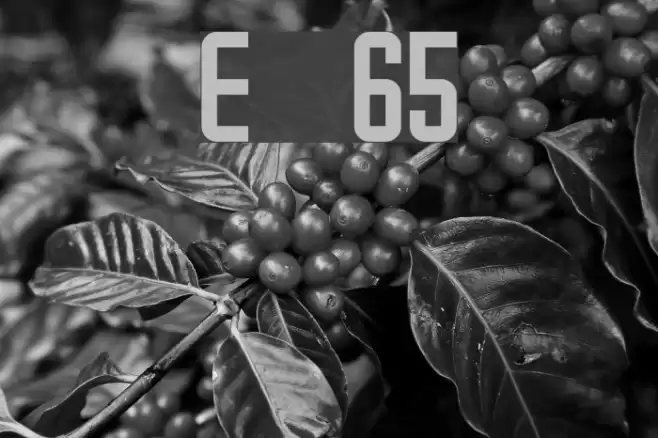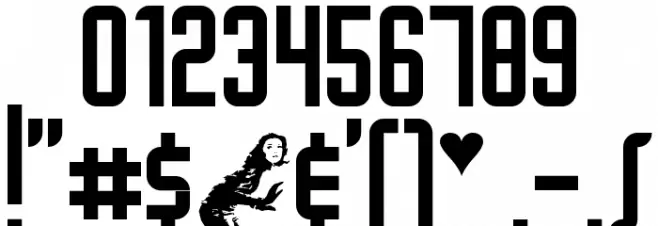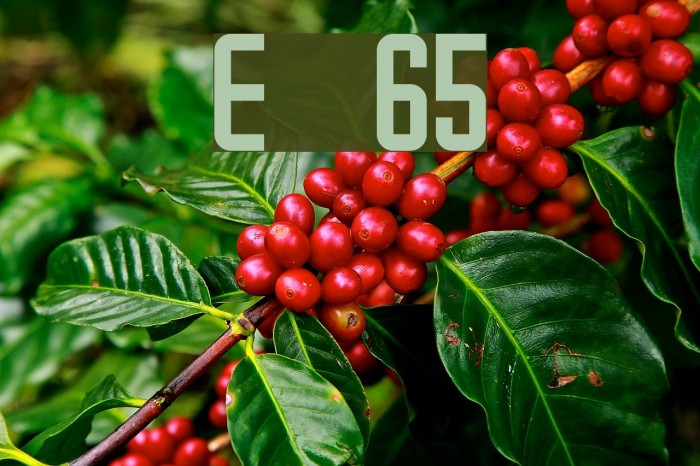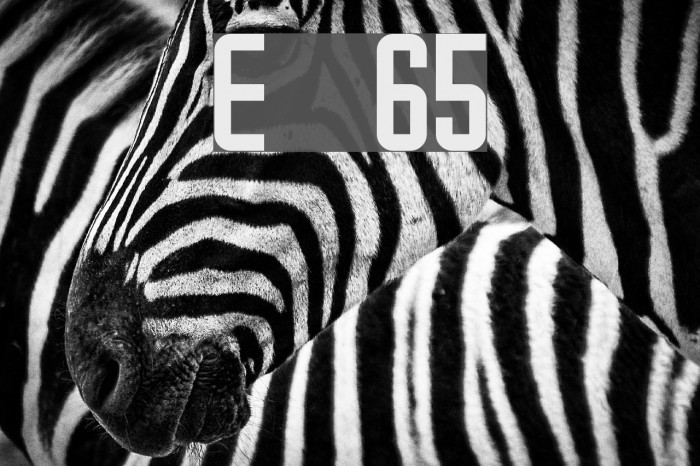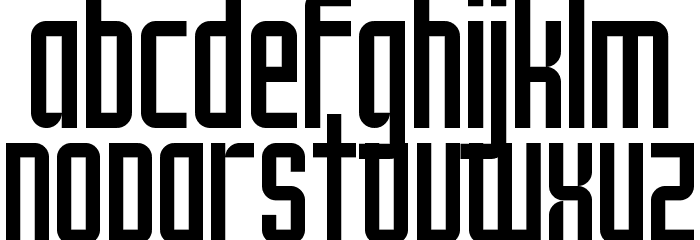
Emma 65 Font
Emma 65 Description
This font features a bold and geometric design with a strong presence. Its characters are tall and narrow, creating a condensed appearance that is both modern and striking. The uppercase letters are uniform in height, while the lowercase letters maintain a consistent style with slightly reduced height. The numerals are equally bold, ensuring readability and impact. Special characters are creatively integrated, adding a unique flair to the overall design. This font's clean lines and structured form make it suitable for a variety of applications where a contemporary and assertive look is desired.
A bold, geometric font with a modern, condensed style from Uncategorized fonts.
- Proposed Projects: Ideal for branding, posters, headlines, and digital media where a strong visual impact is needed.